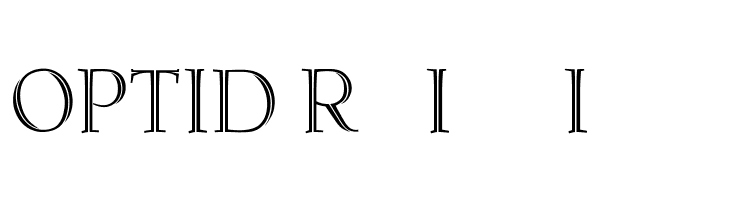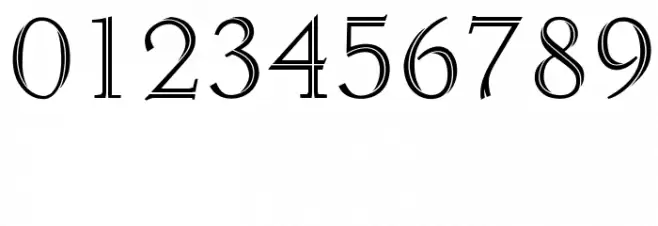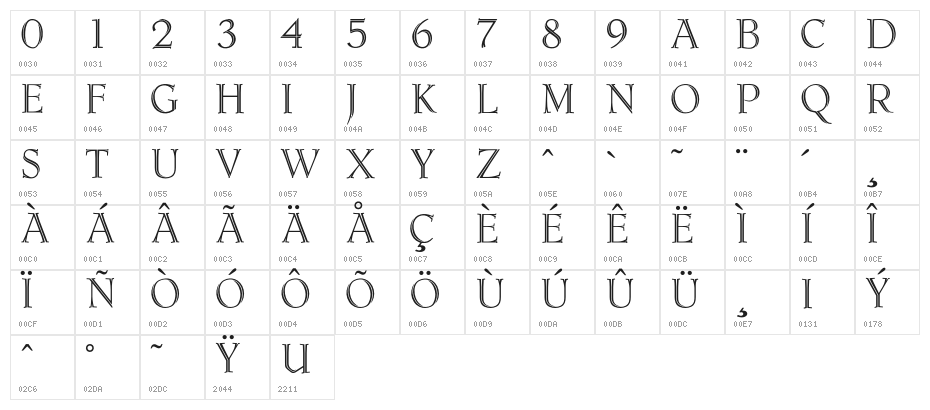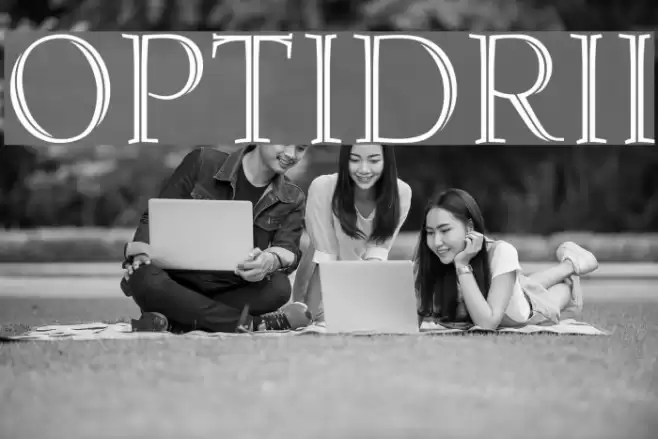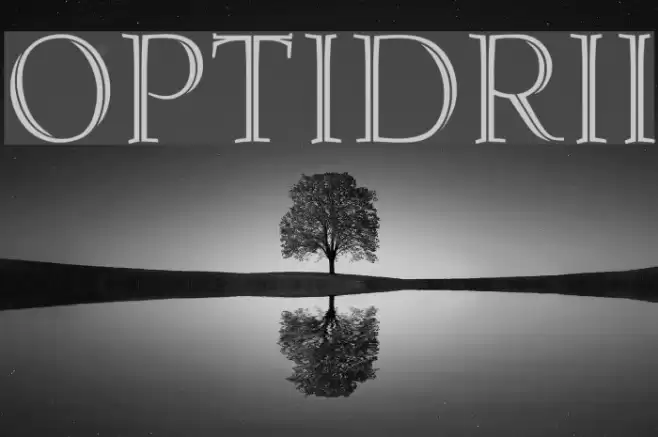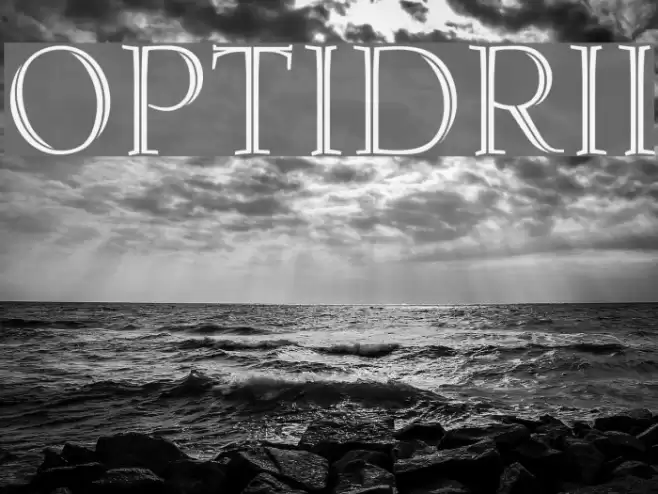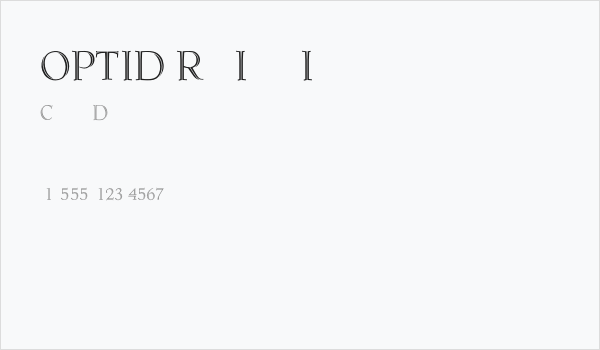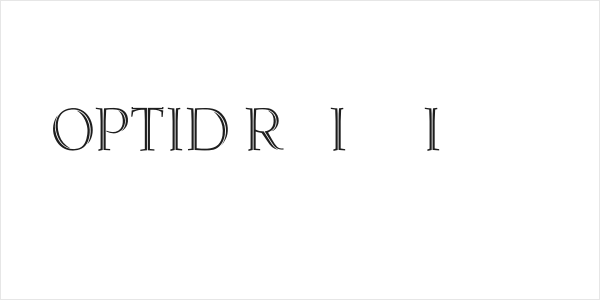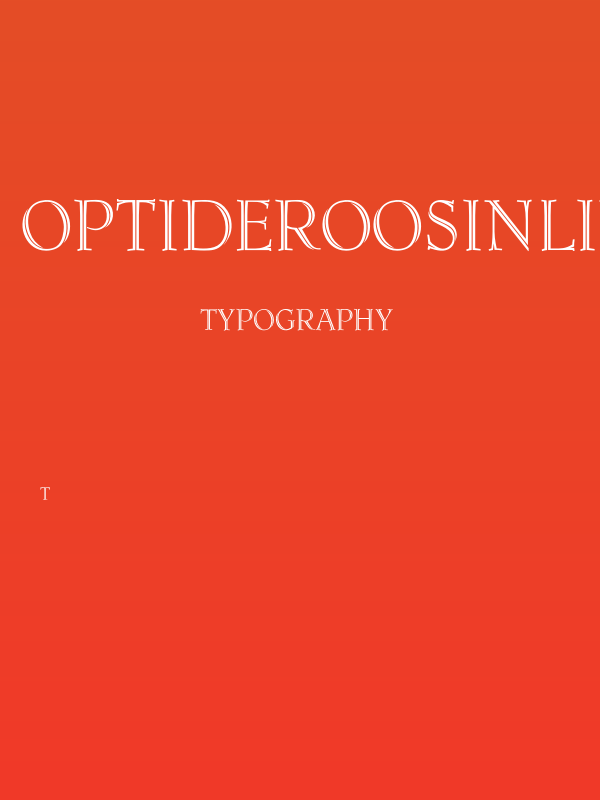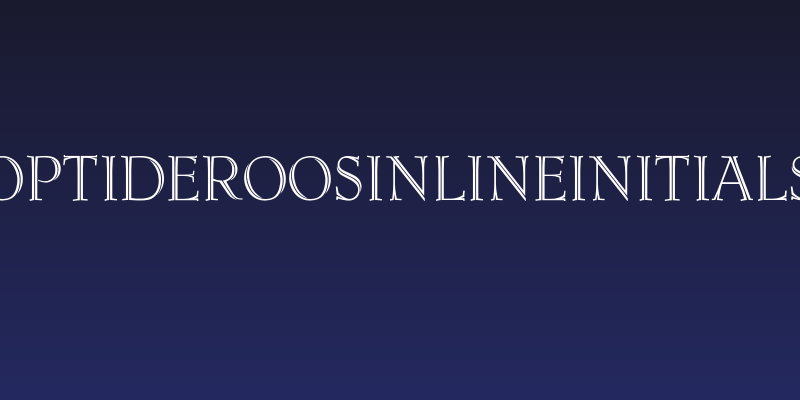
OPTIDeRoosInlineInitials Font
OPTIDeRoosInlineInitials Description
This font features a classic and elegant serif design with distinct, sharp serifs and a refined, sophisticated appearance. The uppercase letters are characterized by their tall, narrow proportions and subtle curves, giving them a stately presence. The numerals are equally elegant, maintaining the same sharpness and precision as the letters. The overall style is reminiscent of traditional serif fonts but with a modern twist, making it suitable for both formal and contemporary applications. The font's high contrast in stroke thickness adds to its readability and visual impact, making it ideal for headlines and titles.
| Proposed Projects | Ideal for use in wedding invitations, luxury branding, editorial design, and high-end product packaging. |